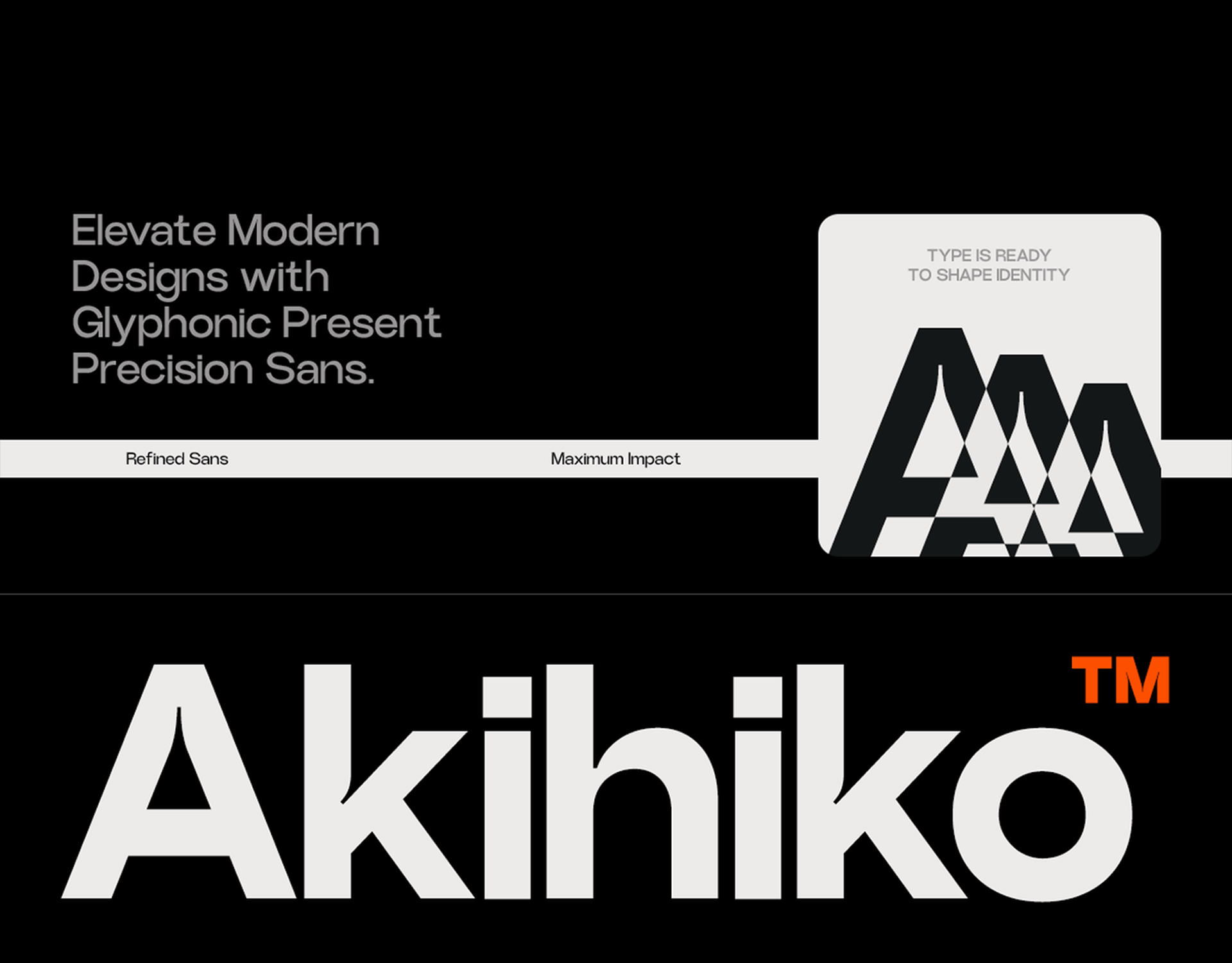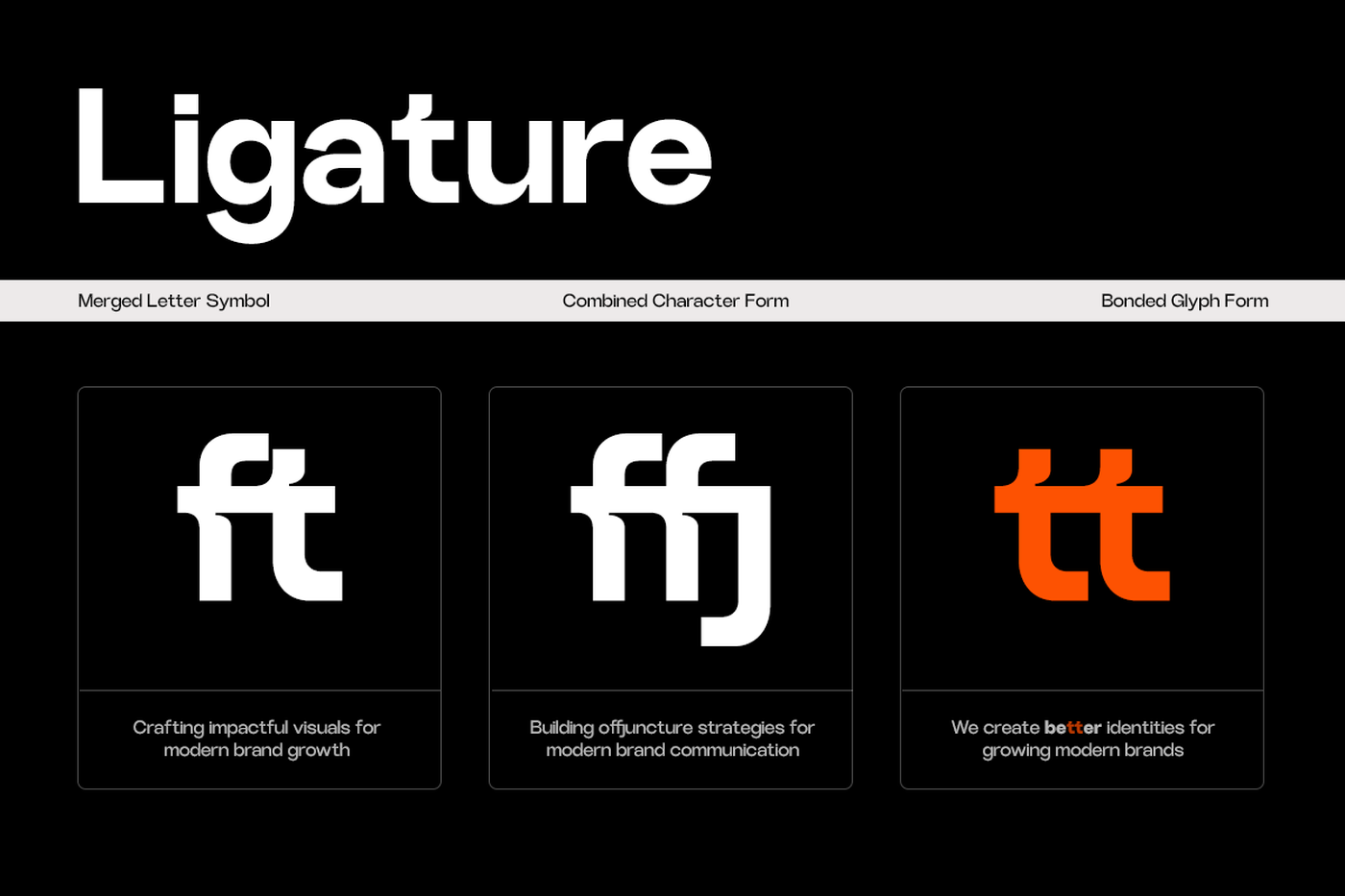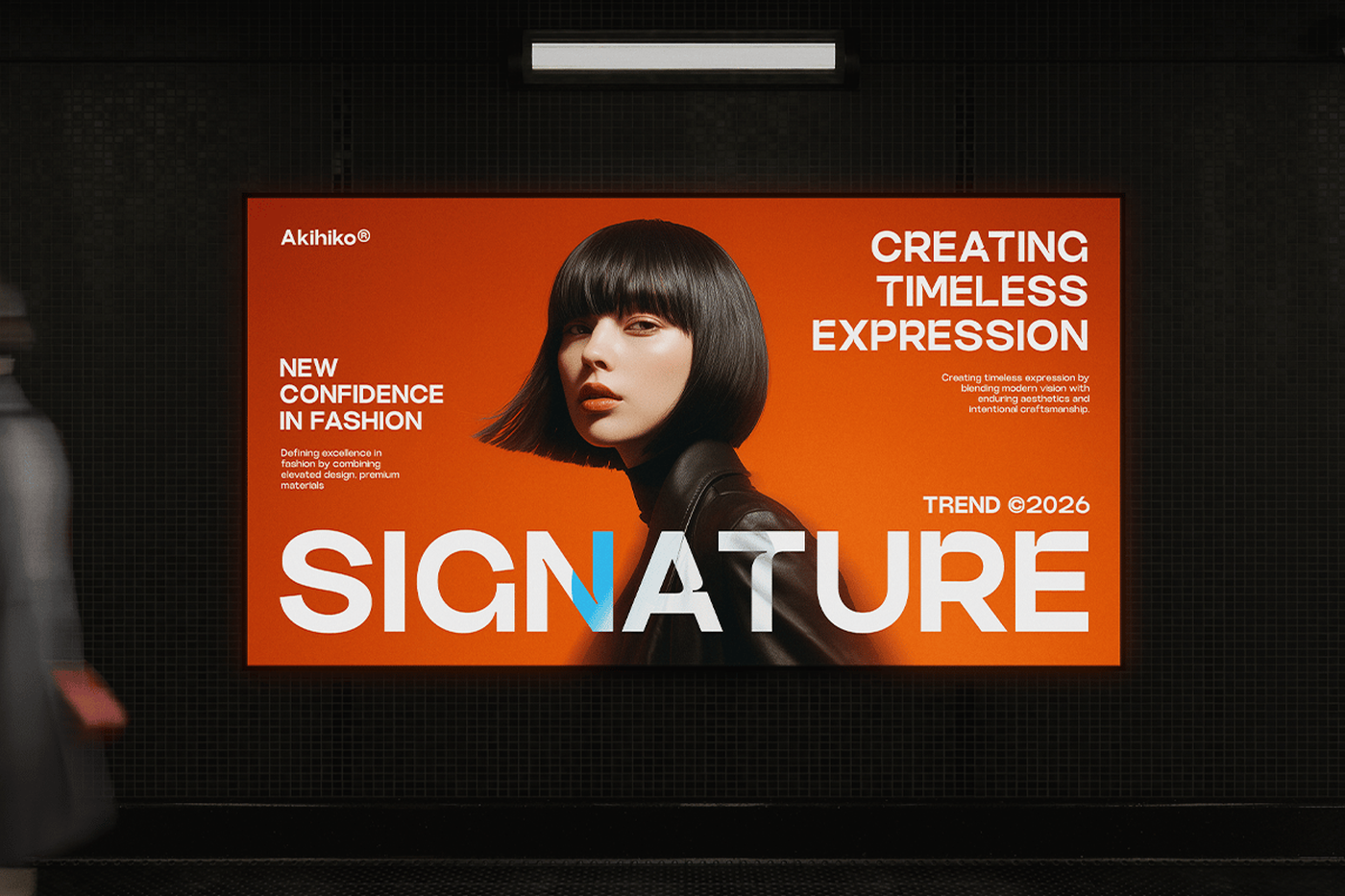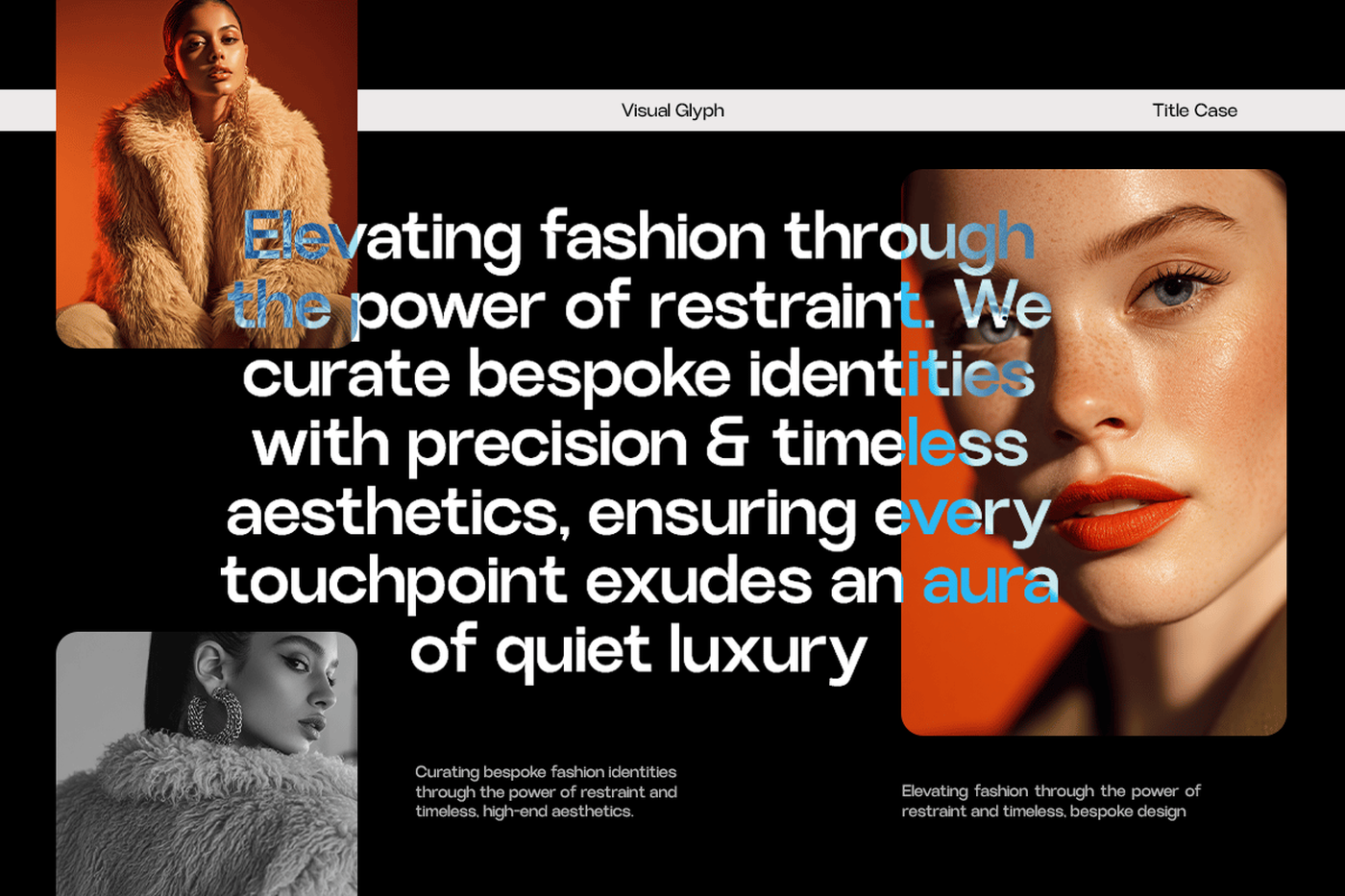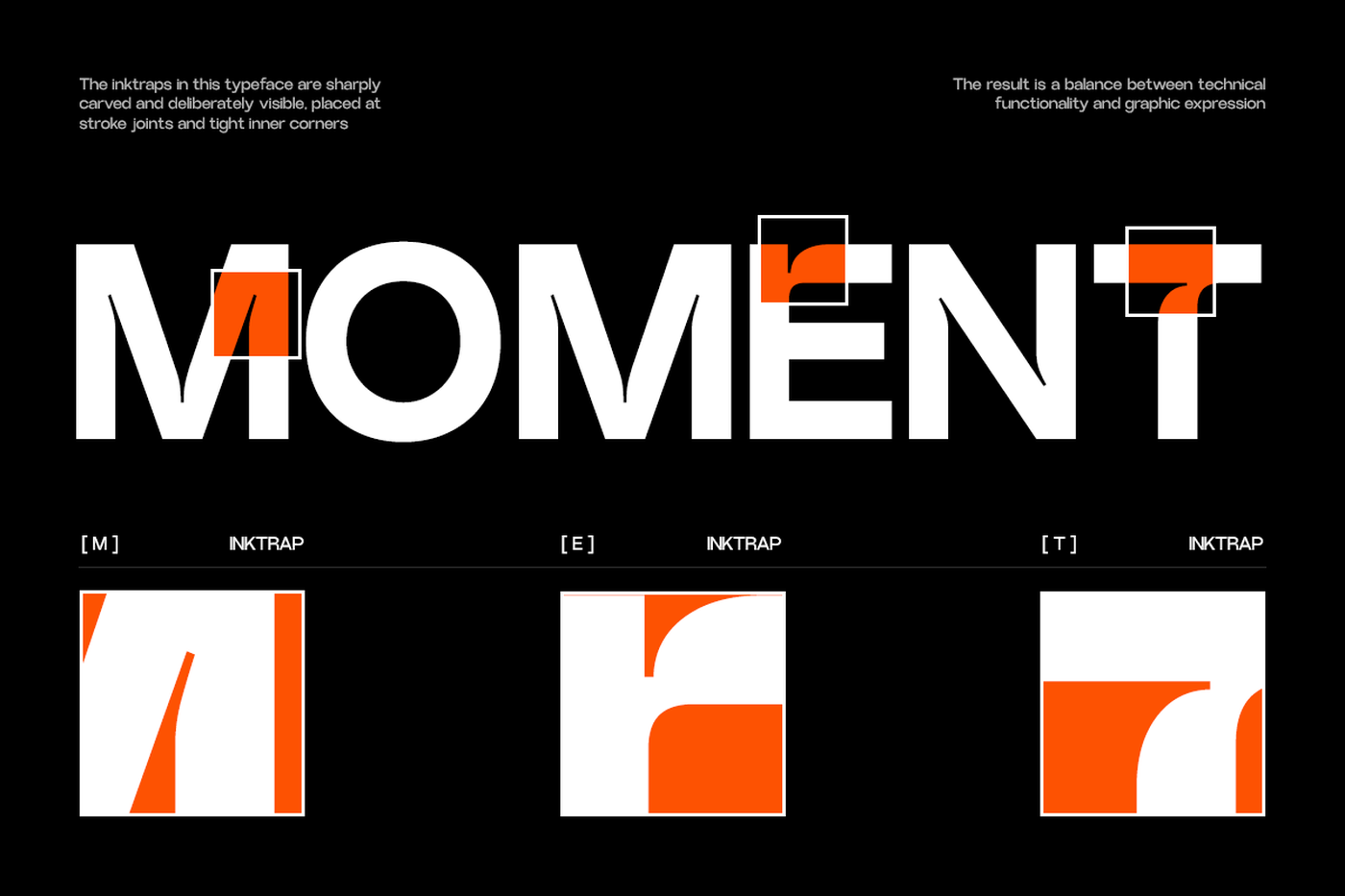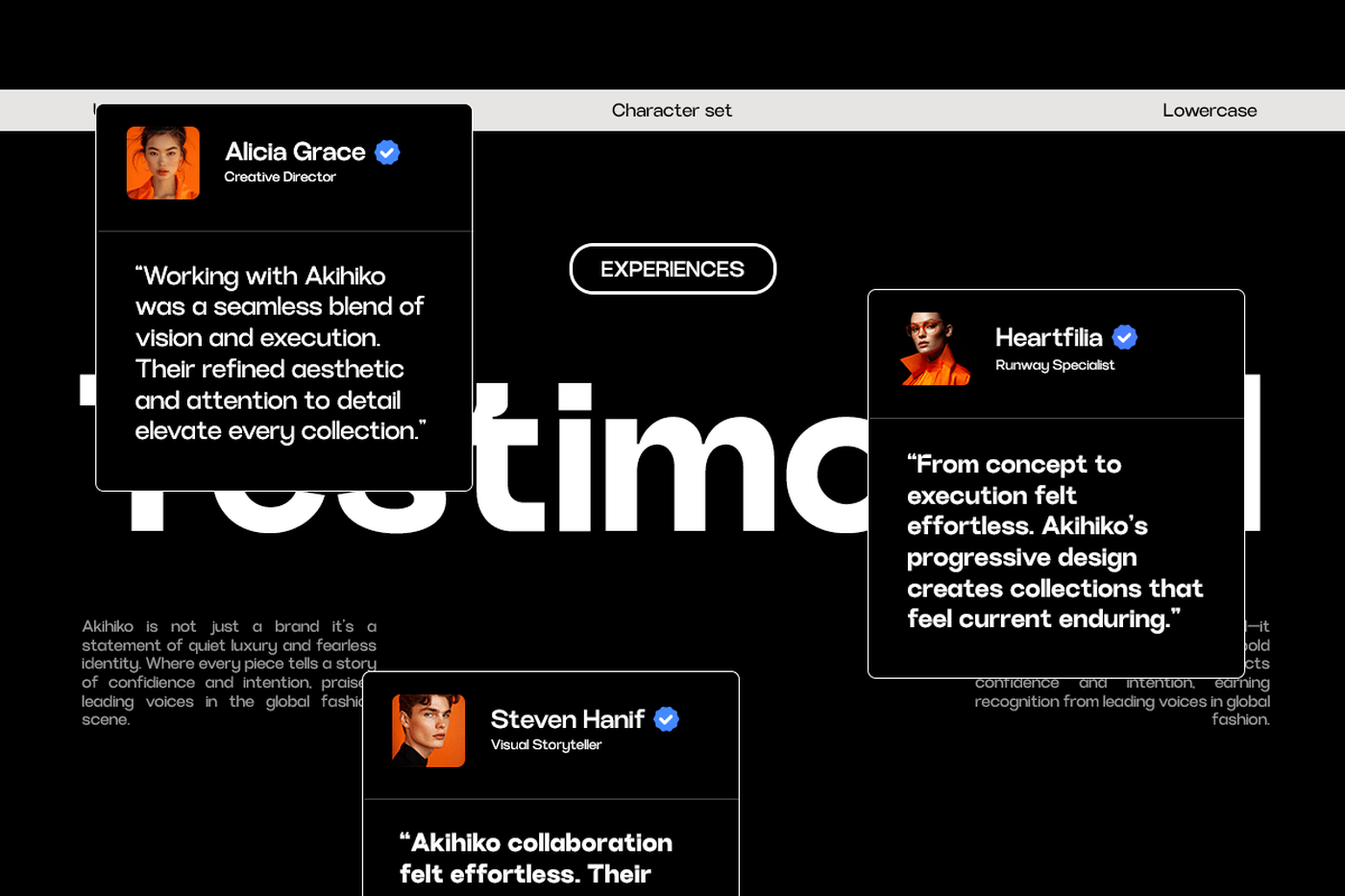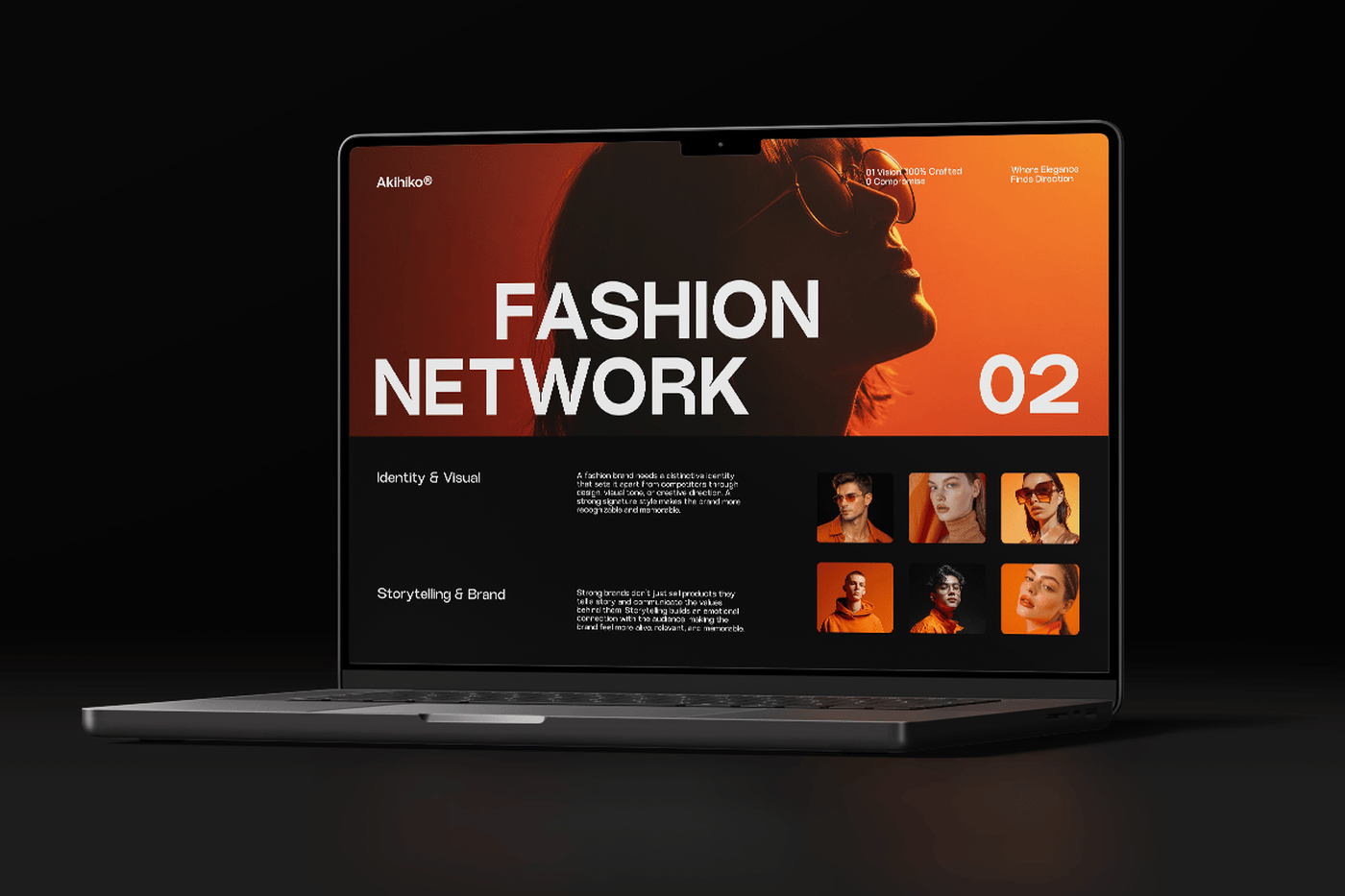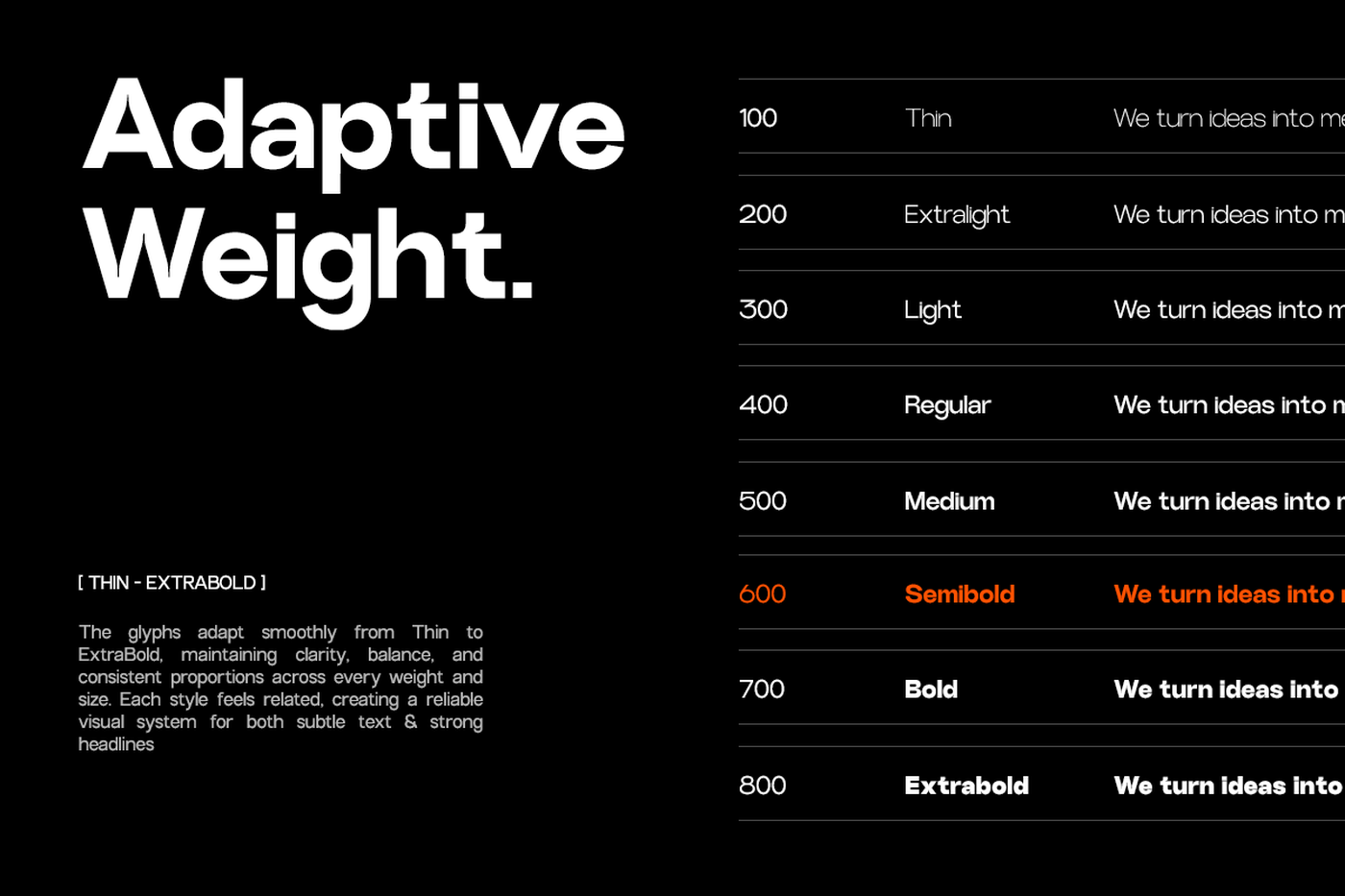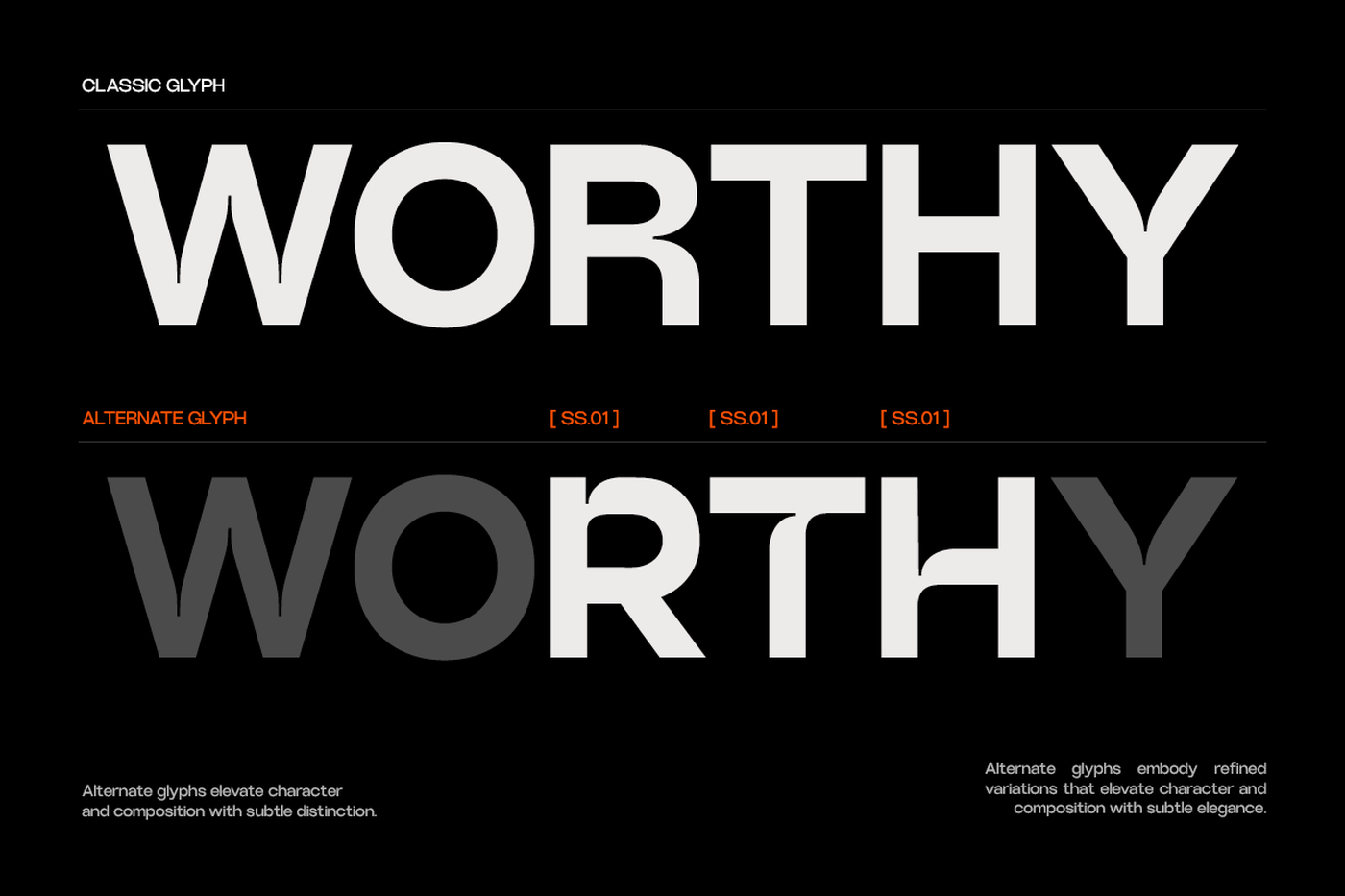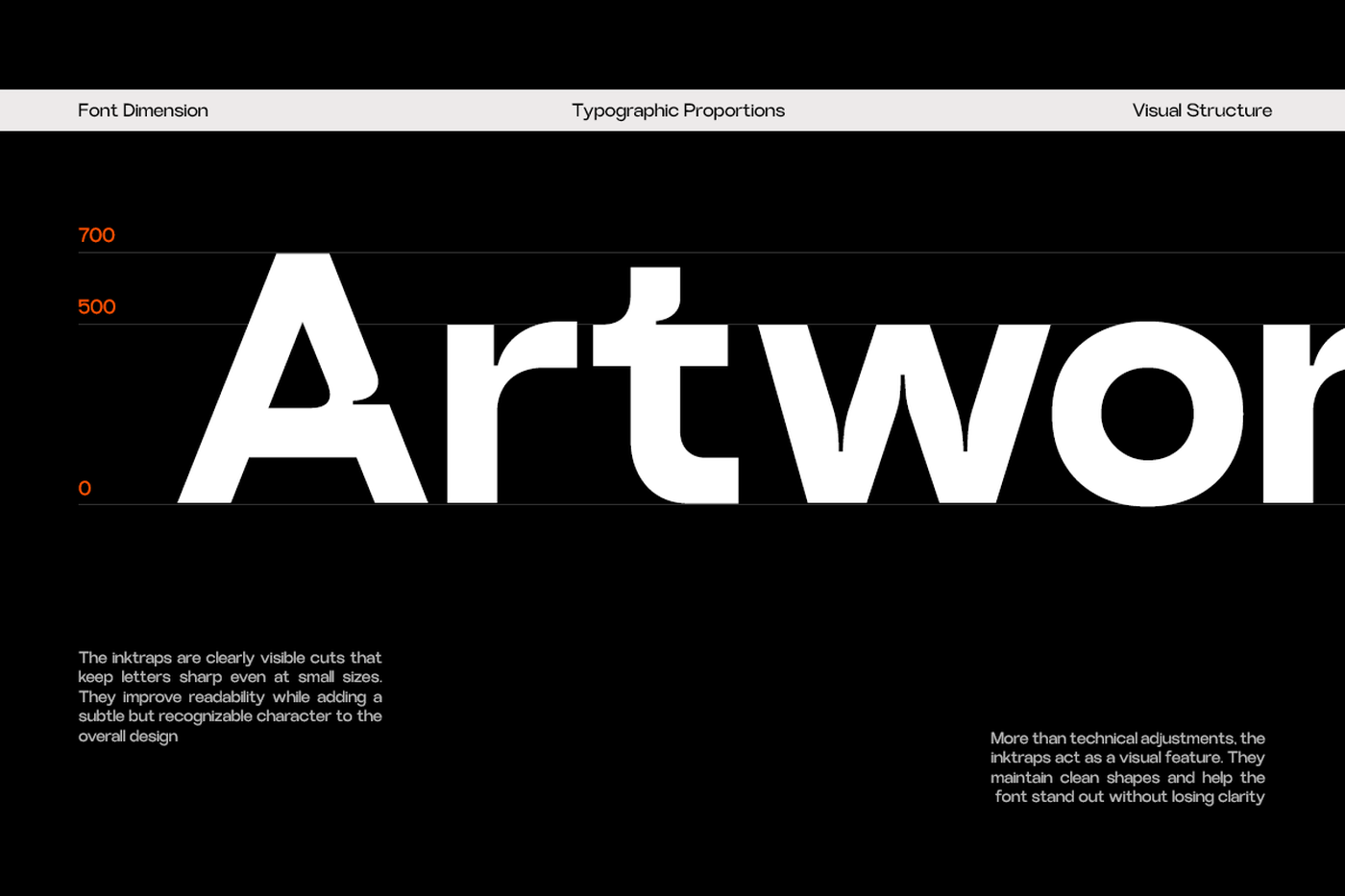
Akihiko - Modern Sans Serif Font
Akihiko is a contemporary sans serif typeface designed with refined geometry and precise modern structure. Built to deliver clarity and control, Akihiko presents a clean and confident typographic voice suited for high-end visual communication. With sharp cuts, balanced proportions, and minimalist detailing—as seen in its structured letterforms—GC Akihiko creates a sense of precision and sophistication. Its design focuses on clarity and alignment, making it ideal for branding systems, editorial layouts, modern interfaces, and corporate design.